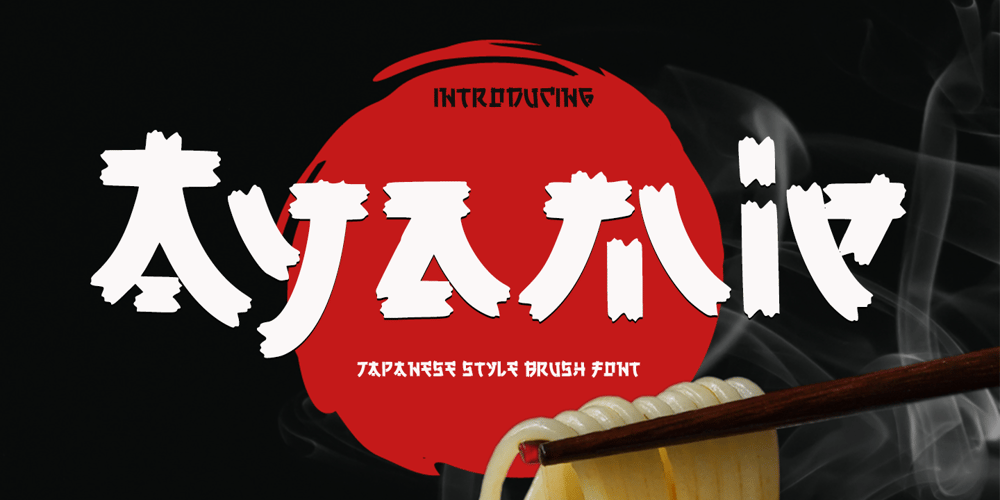
Ayamie
Ayamie font
Ayamie Font Family was designed by Muhammad Zaini and published by Cocodesign. Ayamie contains 1 styles and family package options. Ayamie japanese style brush handwriting design, including Regular. This font is casual and beautiful with swash. Can be used for various purposes. such as logos, product packaging, wedding invitations, branding, headlines, signage, labels, signatures, book covers, posters, quotes, and more.